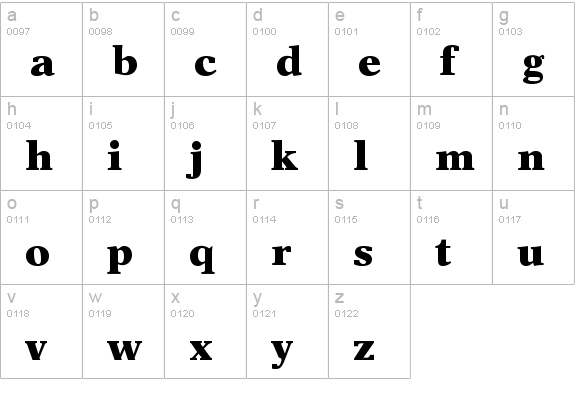
New Aster Black Font Details
New Aster Black is a maximum-weight, dramatic variant in the New typeface family \xE2\x80\x94 well suited to maximum-impact headlines, posters, and packaging.
Introducing the stunning and versatile New Aster Black font! This elegant typeface exudes sophistication and modernity, making it perfect for a wide range of design projects. With its bold and impactful appearance, New Aster Black commands attention and adds a touch of luxury to any design. What sets New Aster Black apart is not just its striking aesthetic, but also the fact that it is available for free download at FontsMarket.com. Yes, you read that right – this premium quality font can be yours at no cost, allowing you to elevate your designs without breaking the bank. Whether you're working on branding, editorial layouts, web design, or any other creative project, New Aster Black is sure to make a statement. Its clean lines, sleek curves, and timeless appeal make it a must-have addition to your font collection. Download New Aster Black today and take your designs to the next level!